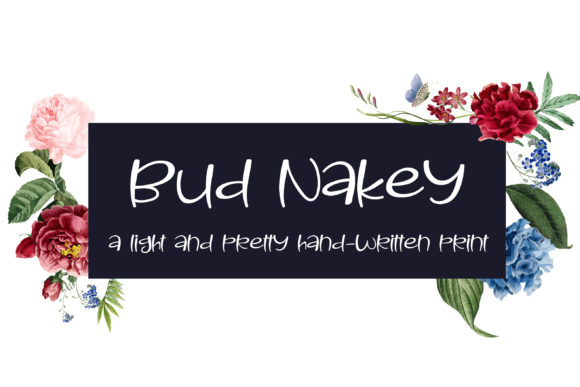
Introducing Bud Nakey Font: The Perfect Casual Handwritten Script for Designers and Crafters
Are you tired of using the same old fonts in your designs? Look no further than the Bud Nakey Font, a casual handwritten script that is sure to add a touch of personality to your projects. This unique font features a lowercase that is raised up, eliminating descenders and creating a clean, playful look.
What is Bud Nakey Font?
Bud Nakey Font is a carefully crafted handwritten script that is perfect for designers and crafters looking for a fresh and modern font. The font’s casual, laid-back vibe makes it ideal for a wide range of projects, from social media graphics and blog posts to invitations and crafts.
One of the standout features of Bud Nakey Font is its raised lowercase letters. Unlike traditional fonts, which have descenders that extend below the baseline, Bud Nakey Font’s lowercase letters are raised up, creating a clean and streamlined look. This unique feature gives the font a playful, whimsical feel that is sure to capture the attention of your audience.
Key Features of Bud Nakey Font
- Unique Raised Lowercase: The font’s raised lowercase letters create a clean and playful look, perfect for designs that need a touch of personality.
- Casual Handwritten Script: Bud Nakey Font has a relaxed, handwritten feel that is perfect for informal designs and projects.
- Versatile: The font is suitable for a wide range of projects, from social media graphics and blog posts to invitations and crafts.
- Easy to Read: Despite its playful look, Bud Nakey Font is easy to read, making it perfect for designs that need to communicate a message.
Uses for Bud Nakey Font
Bud Nakey Font is a versatile font that can be used in a wide range of projects. Here are a few ideas to get you started:
- Social Media Graphics: Add a touch of personality to your social media graphics with Bud Nakey Font. Use it to create eye-catching posts, stories, and ads.
- Blog Posts: Use Bud Nakey Font to add a playful touch to your blog posts. It’s perfect for headings, subheadings, and even body text.
- Invitations: Create unique and personalized invitations with Bud Nakey Font. It’s perfect for birthdays, weddings, and other special occasions.
- Crafts: Bud Nakey Font is also perfect for crafters. Use it to create handmade cards, gift tags, and other paper crafts.
Tips for Using Bud Nakey Font
Here are a few tips for using Bud Nakey Font in your designs:
- Pair it with Other Fonts: Bud Nakey Font looks great when paired with other fonts. Try pairing it with a bold sans-serif font for a striking contrast.
- Use it in Headings: Bud Nakey Font is perfect for headings and subheadings. Use it to add a touch of personality to your designs.
- Experiment with Colors: Bud Nakey Font looks great in a variety of colors. Experiment with different colors to find the perfect look for your design.
Bud Nakey Font is a unique and versatile font that is perfect for designers and crafters looking for a fresh and modern look. Its raised lowercase letters and casual handwritten script make it ideal for a wide range of projects, from social media graphics and blog posts to invitations and crafts. With its easy-to-read design and playful vibe, Bud Nakey Font is sure to add a touch of personality to your designs.